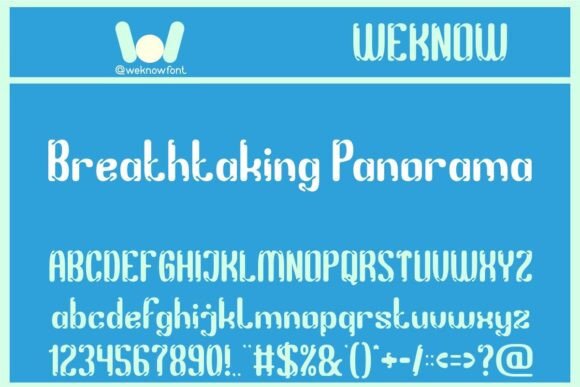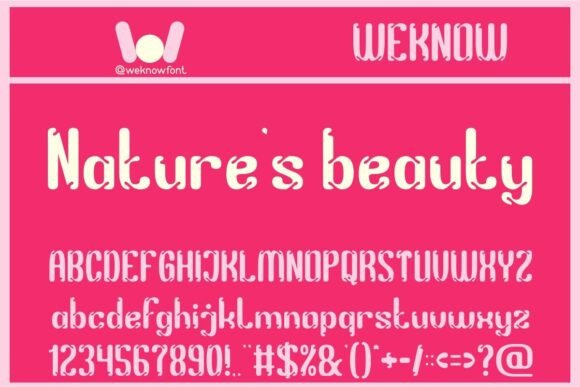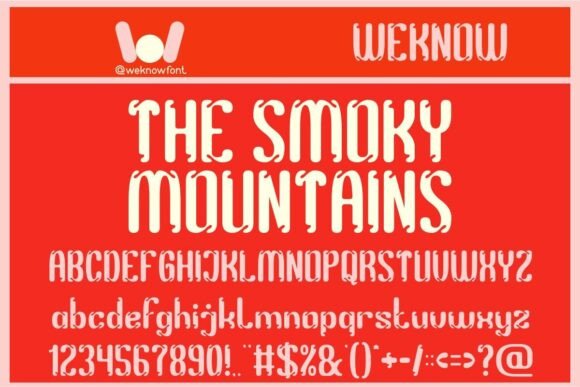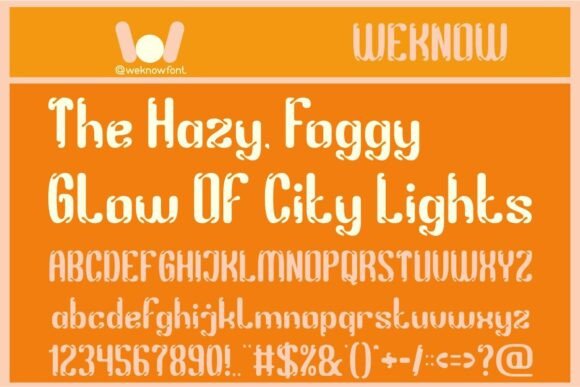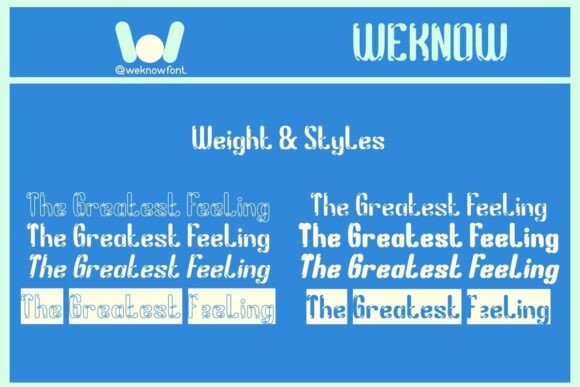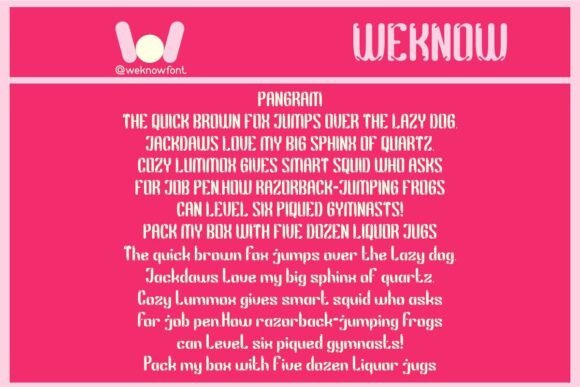
Introduction to Greatest Feeling Font
Have you ever found yourself staring at a blank canvas, trying to bring your creative vision to life? The cursor blinks, and the words won’t come. But then, like a spark of inspiration, you stumble upon the perfect font – one that elevates your entire project and leaves a lasting impression. For many designers, that font is the Greatest Feeling Font, a display typeface that effortlessly combines aesthetics, charm, and a dash of mystique.
Whether you’re working on a high-profile creative project or simply want to add a touch of elegance to your personal website, Greatest Feeling Font is the perfect design resource. Its versatility makes it a go-to choice for designers looking to create stand-out content for various mediums, from fashion and music to film and gaming. And with its transparent background, you can easily combine it with other design elements to create a truly unique visual identity.
Key Features of Greatest Feeling Font
- High-quality design: The Greatest Feeling Font is crafted with precision and care to provide a unique and eye-catching look for your creative project.
- Transparent background: This font features a transparent background, allowing you to easily overlay it on any image or design element.
- High-resolution design: The Greatest Feeling Font is designed at 300 DPI, making it perfect for use in high-resolution designs, such as print materials and digital signage.
- Unique characteristics: This font features a distinctive, hand-drawn style with a mix of bold and cursive elements, making it ideal for adding a personal touch to your creative project.
- Perfect for design projects: The Greatest Feeling Font is an excellent choice for designers working on creative projects, such as logos, posters, and social media graphics.
Honest Review: Greatest Feeling Font
I recently had the chance to try out the Greatest Feeling Font, and I must say, it’s been a game-changer for my creative projects. The moment I downloaded it from a free download site, I was impressed by the high quality of the font.
One of the things I love about the Greatest Feeling Font is its versatility. It’s perfect for a wide range of creative projects, from posters to social media graphics, and even branding materials. The transparent background makes it easy to customize and blend with any design element.
- High-quality design with a transparent background
- Perfect for a variety of creative projects
- Easy to customize and blend with other design elements
However, I did notice that the Greatest Feeling Font is not suitable for small text or body copy. The font is best used for headings and titles.
- Not ideal for small text or body copy
- Limited legibility in certain font sizes
Overall, I’m very impressed with the Greatest Feeling Font. It’s a valuable design resource that I’ll definitely be using in my future projects.
The Greatest Feeling Font is ideal for a variety of creative projects, including:
- Marketing materials and brochures
- Website designs and logos
Tips for Getting the Most Out of the Greatest Feeling Font
To get the most out of the Greatest Feeling Font, experiment with different font styles and sizes to match your design. You can also combine the font with other design elements, such as images and graphics, to create a visually appealing design.